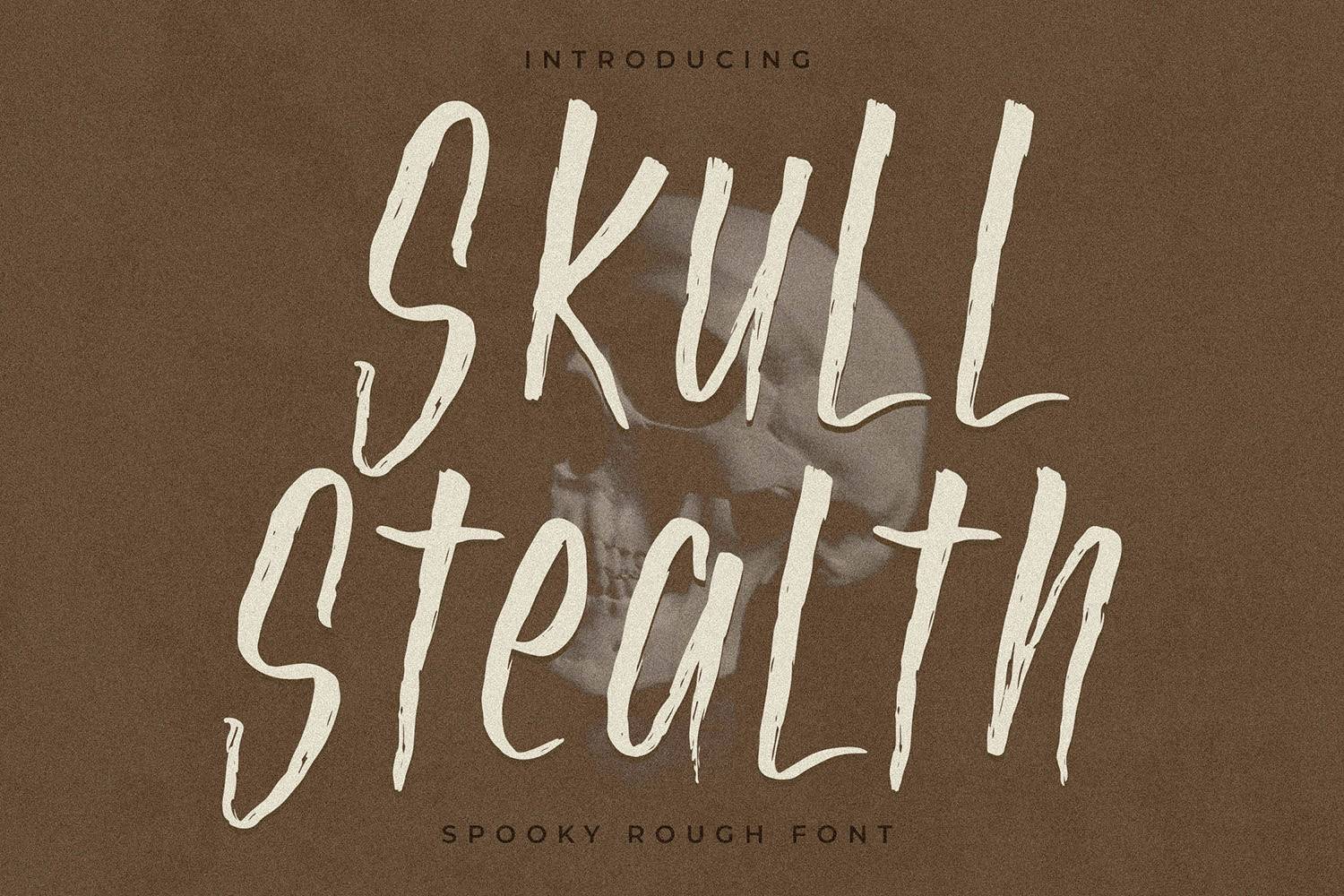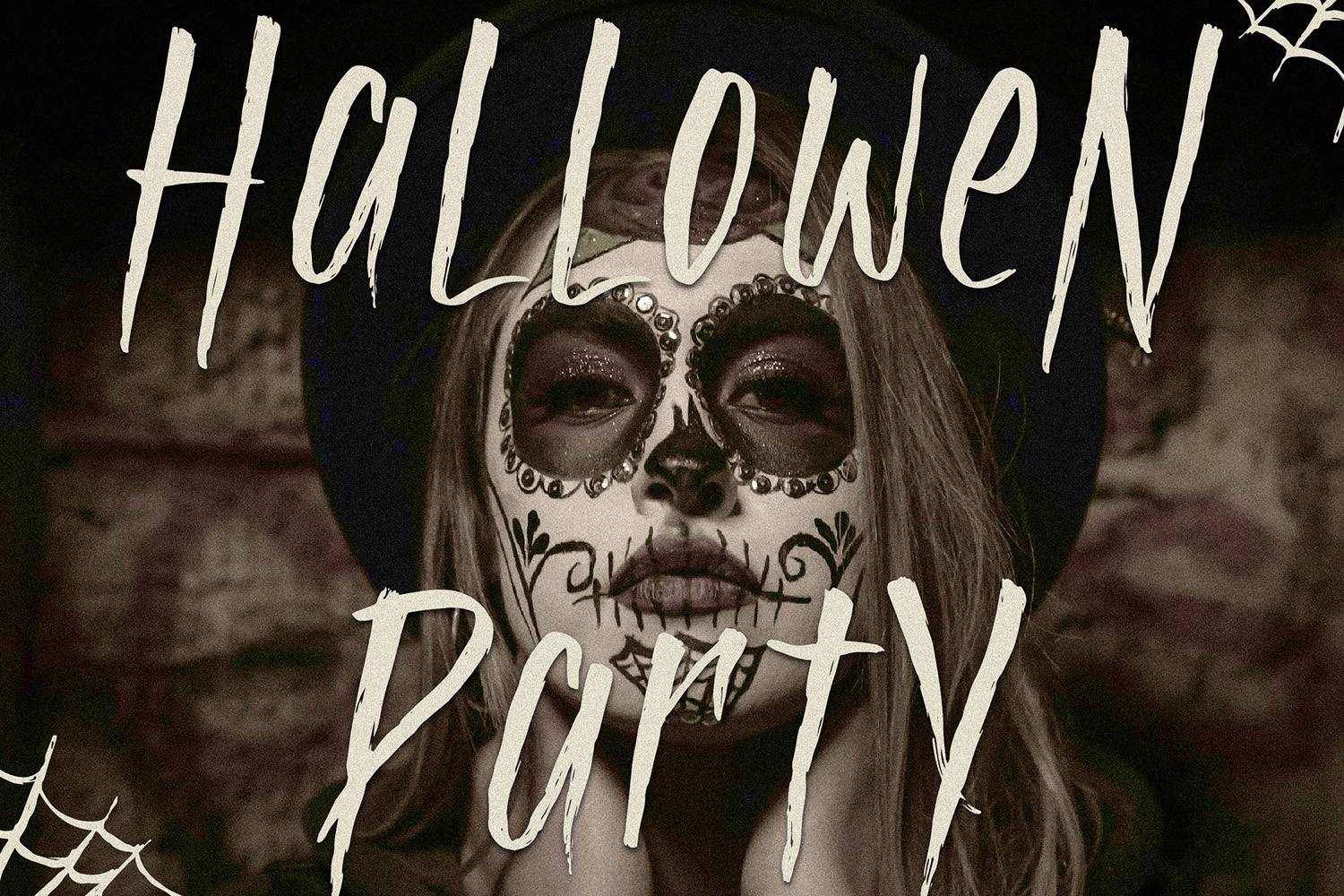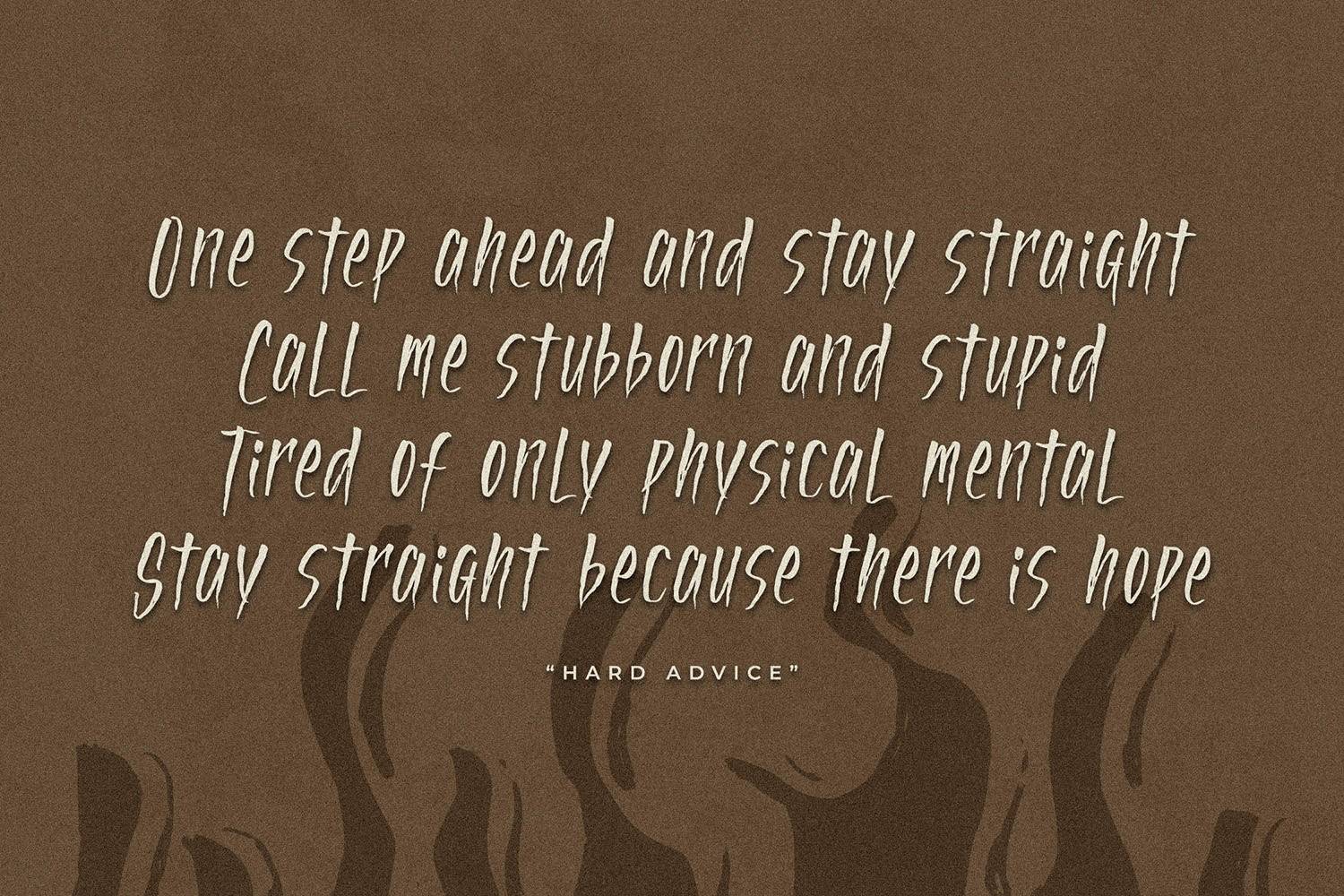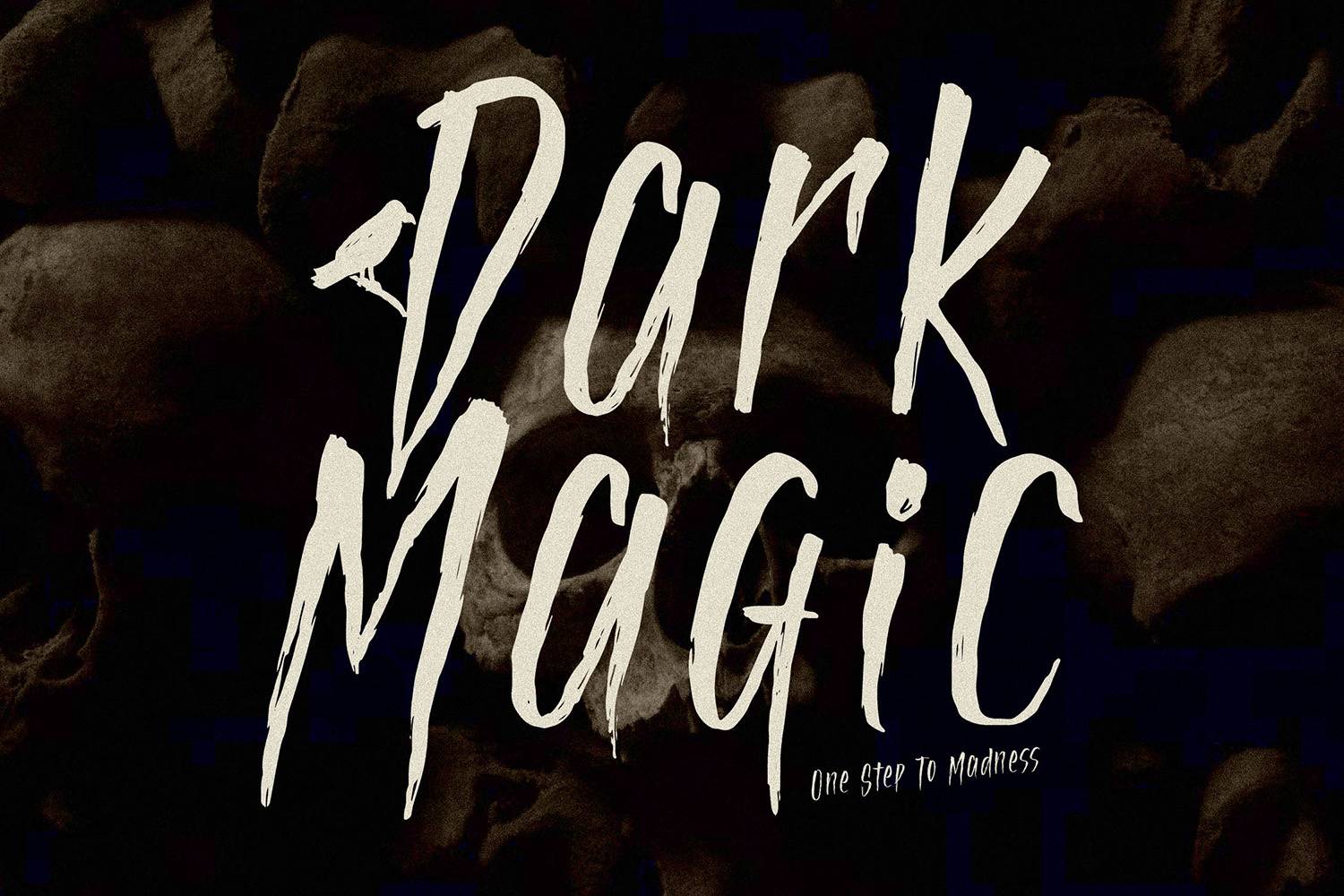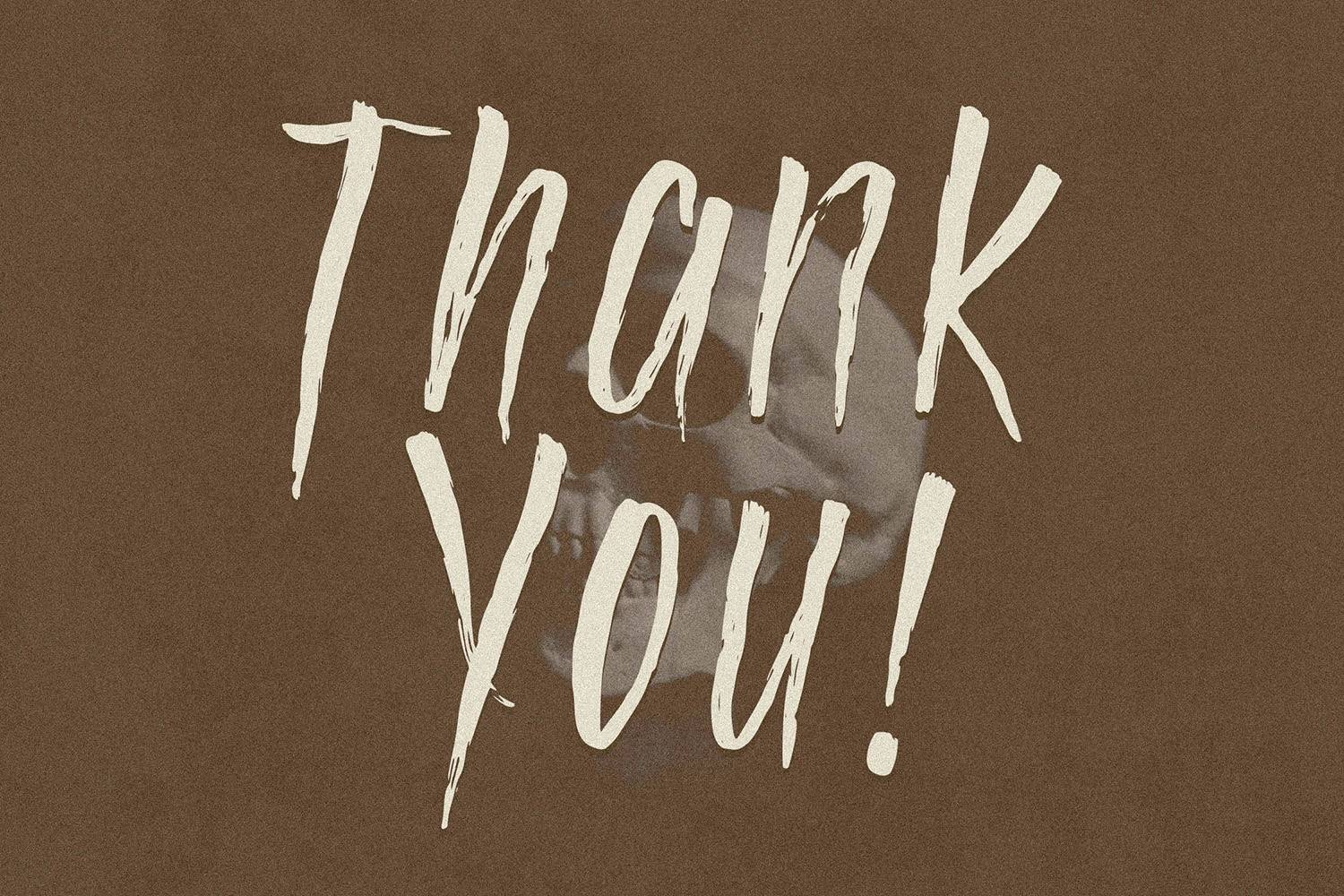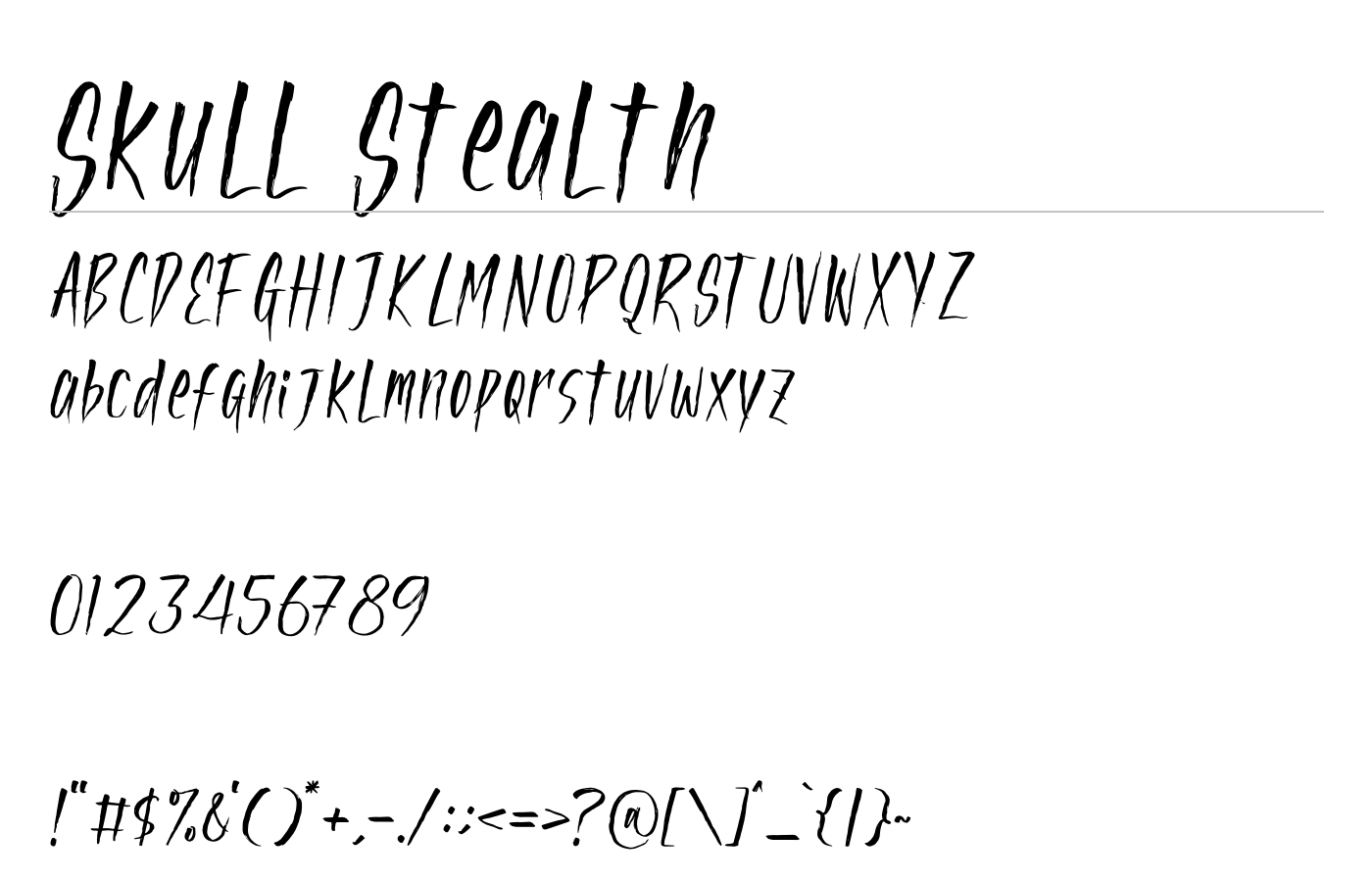
Skull Stealth is a handwritten, narrow sans serif font with a tall, slender appearance and varying stroke thickness that gives a spontaneous, raw feel. Its uneven, brush-like strokes and slightly irregular letterforms create a bold, edgy vibe that works great for creative branding, posters, or any design needing a dynamic, expressive touch. This font stands out in headlines where personality and a sense of urgency or energy are desired.
Skull Stealth Font